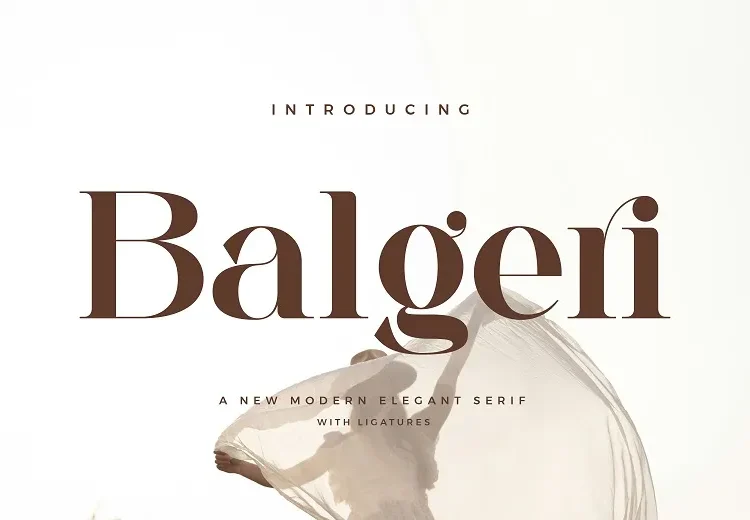
Balgeri Font
Balgeri is a contemporary serif font that masterfully blends classic design elements with a modern aesthetic. Inspired by the elegance of the past, yet designed with a forward-looking approach, Balgeri is perfect for projects that demand sophistication and refinement.
Key Features of Balgeri:
Elegant and Classic Design: Balgeri features finely detailed serifs and well-proportioned letters, giving it a timeless elegance. Its classic touch makes it a versatile font that can enhance the value of any design project.
Versatility Across Projects: Whether you’re working on branding, editorial design, or luxury projects, Balgeri offers the perfect balance of tradition and modernity. Its refined appearance makes it suitable for high-end applications where elegance is key.
Enhances Visual Appeal: The sophisticated design of Balgeri adds a layer of elegance to your work, making it an excellent choice for projects that require a polished and professional look.
Ideal Uses for Balgeri:
Branding and Identity: Use Balgeri to create luxurious and memorable branding materials that stand out with elegance and sophistication.
Editorial and Publishing: Apply Balgeri to editorial designs, such as magazines and books, where its classic yet modern style will enhance the overall visual appeal.
Luxury Projects: For projects that demand a touch of luxury, from packaging to high-end marketing materials, Balgeri delivers a refined and stylish solution.